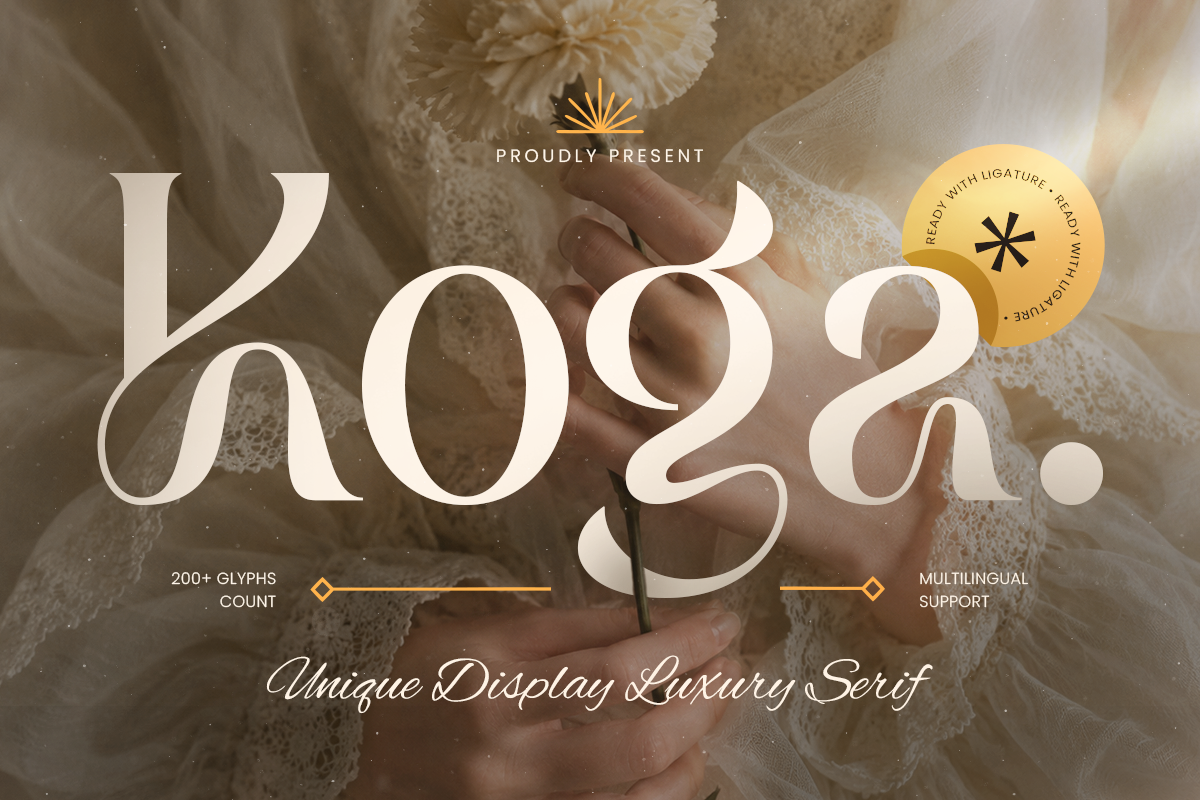
Koga
-Unique Display Luxury Serif Font
Koga – Unique Display Luxury Serif Font
Koga is a unique display luxury serif font crafted with refined elegance and sophisticated character. Featuring graceful serif details, balanced proportions, and a premium visual style, Koga brings a timeless and luxurious feel to every design project. Its distinctive letterforms create a memorable impression for brands that seek a classy and exclusive identity.
Perfect for luxury branding, fashion labels, editorial layouts, wedding invitations, product packaging, and high-end logos, Koga delivers a sophisticated appearance across both digital and print environments. The elegant structure makes it suitable for headlines, magazine covers, social media graphics, and premium marketing materials.
Inspired by modern luxury aesthetics and classic typography, Koga blends traditional serif beauty with contemporary design. This versatile display font helps designers create powerful visual identities with a polished and professional atmosphere.
Koga – Unique Display Luxury Serif Font Features
• Elegant luxury serif letterforms with refined details
• Unique display style for premium branding projects
• Perfect for logos, packaging, editorial, and fashion designs
• Ideal for both print and digital applications
• Stylish typography for invitations, posters, and social media
• OpenType features for creative flexibility